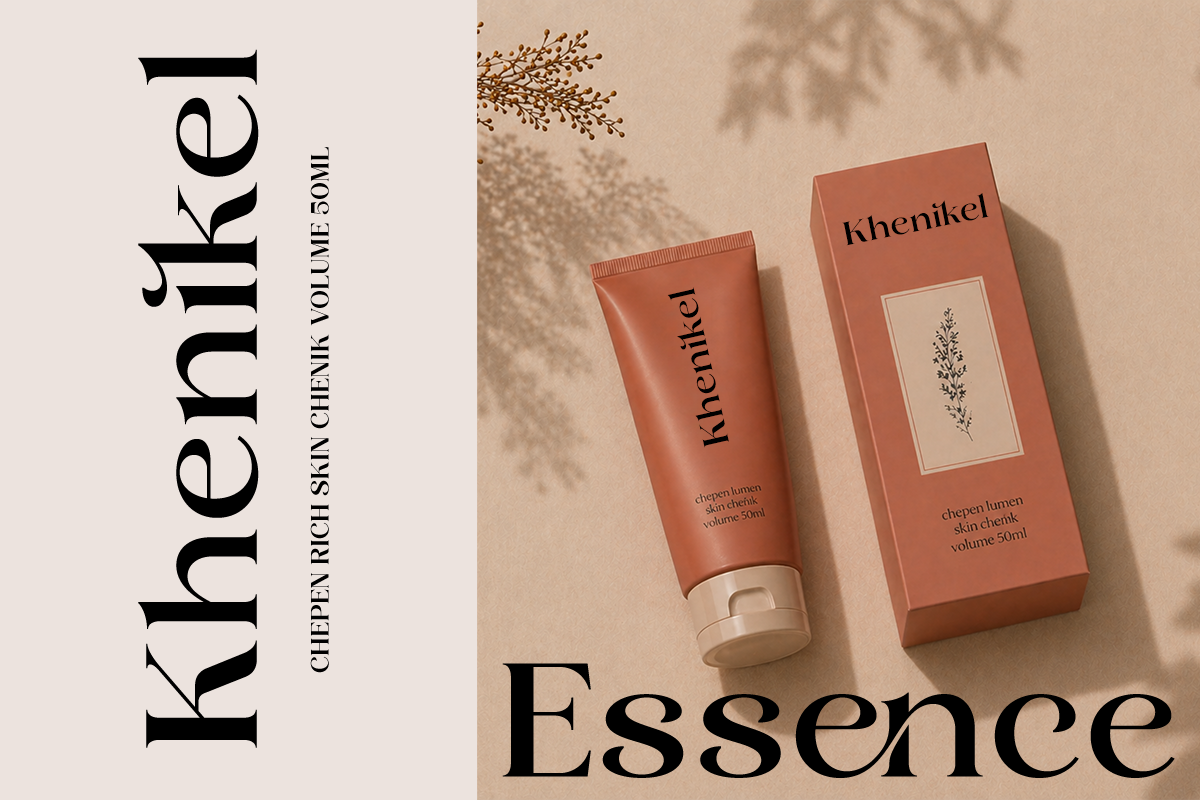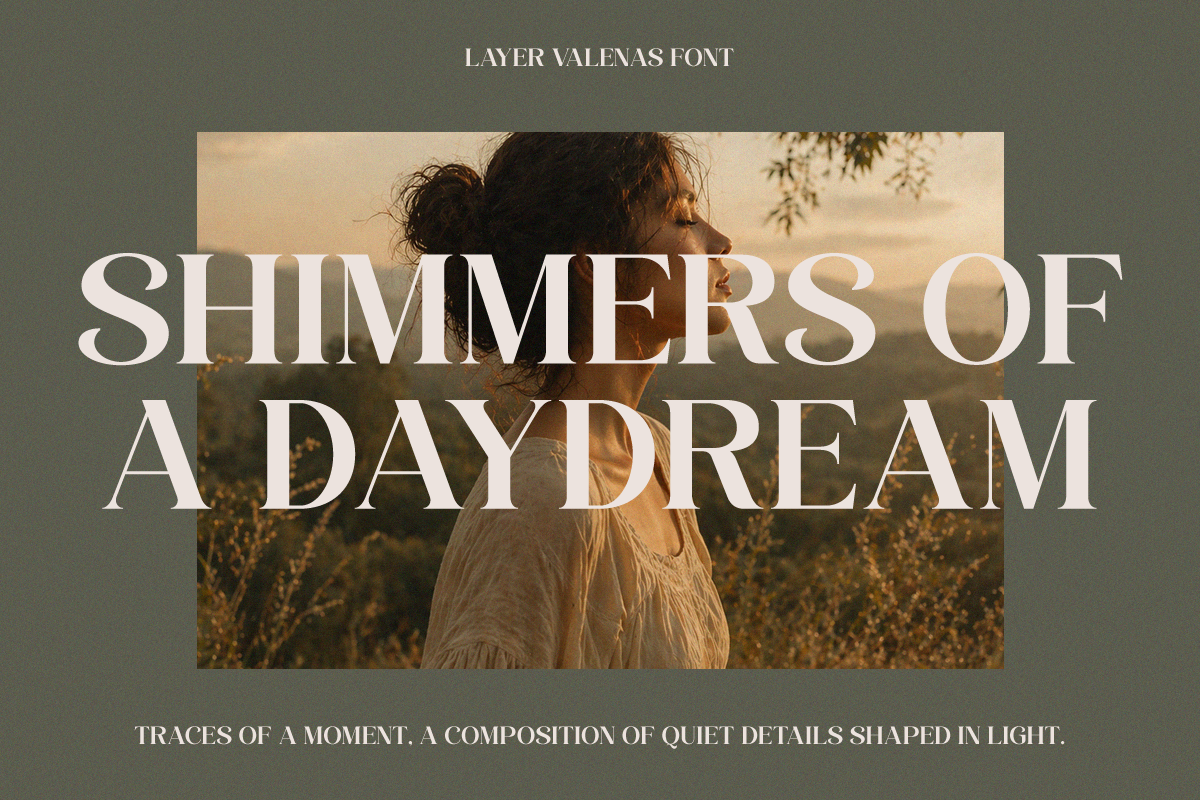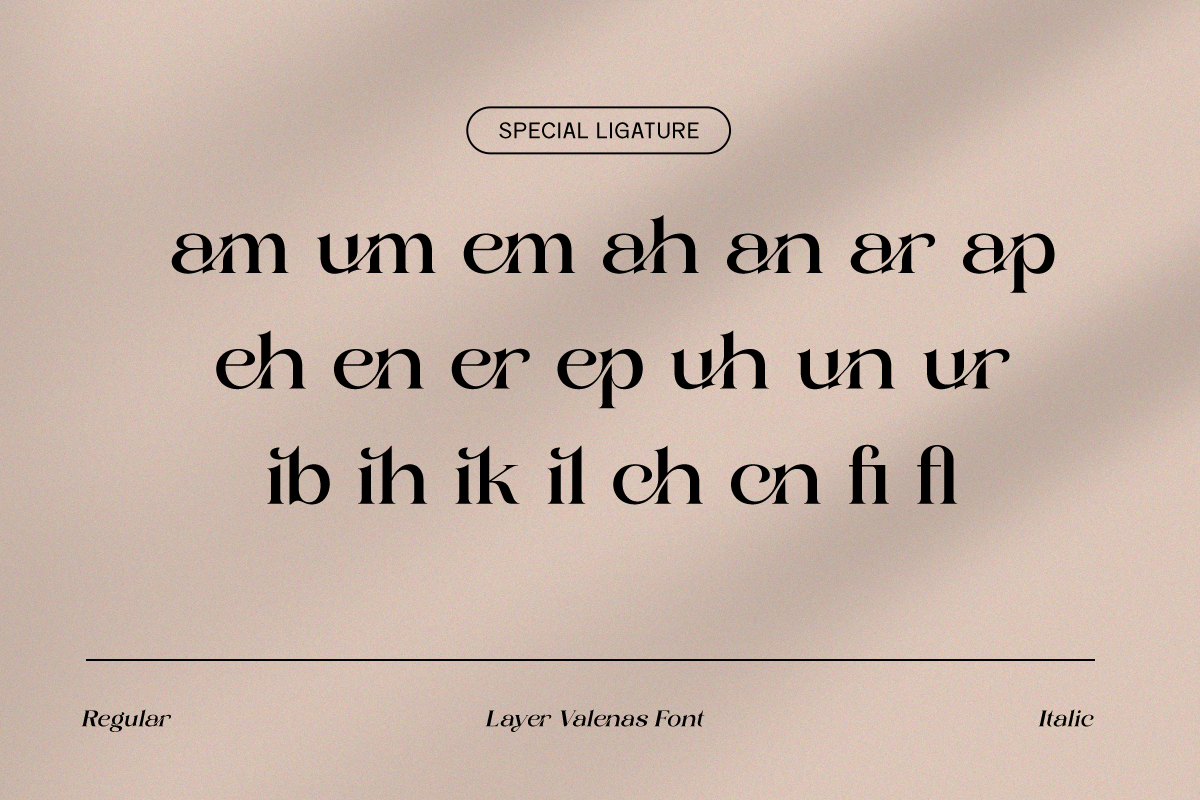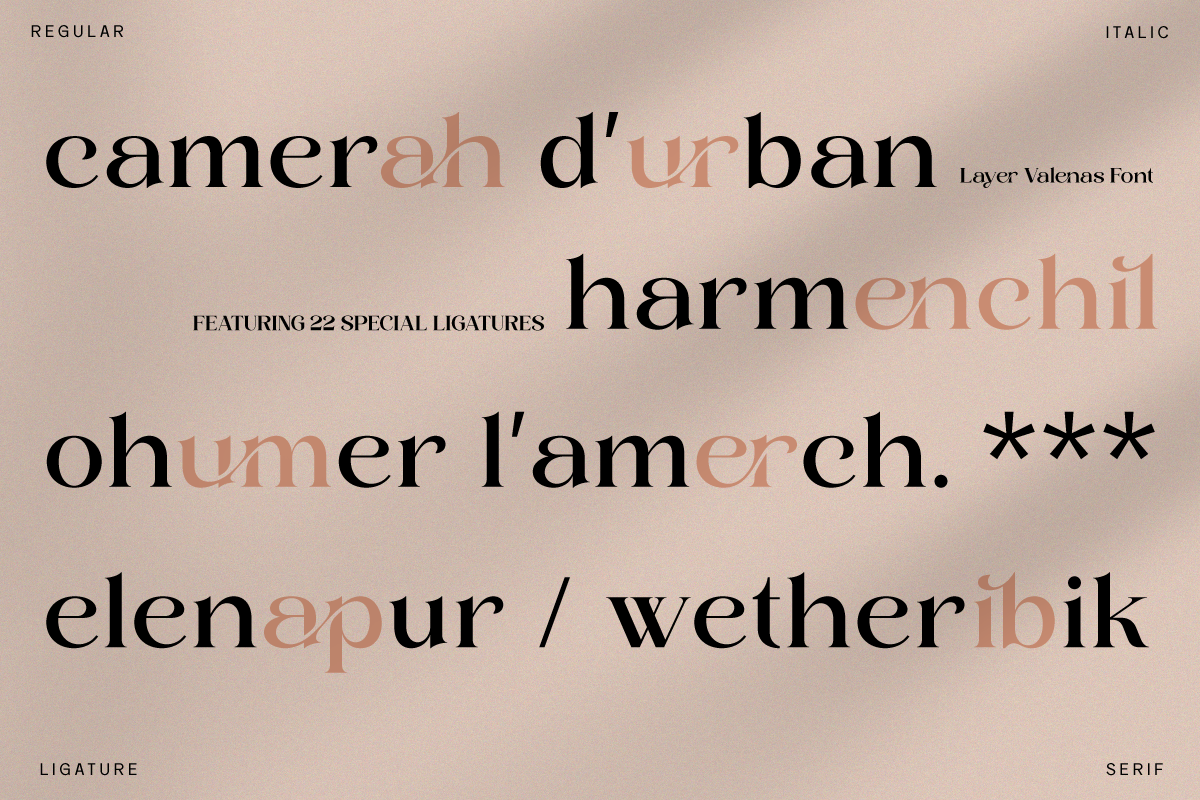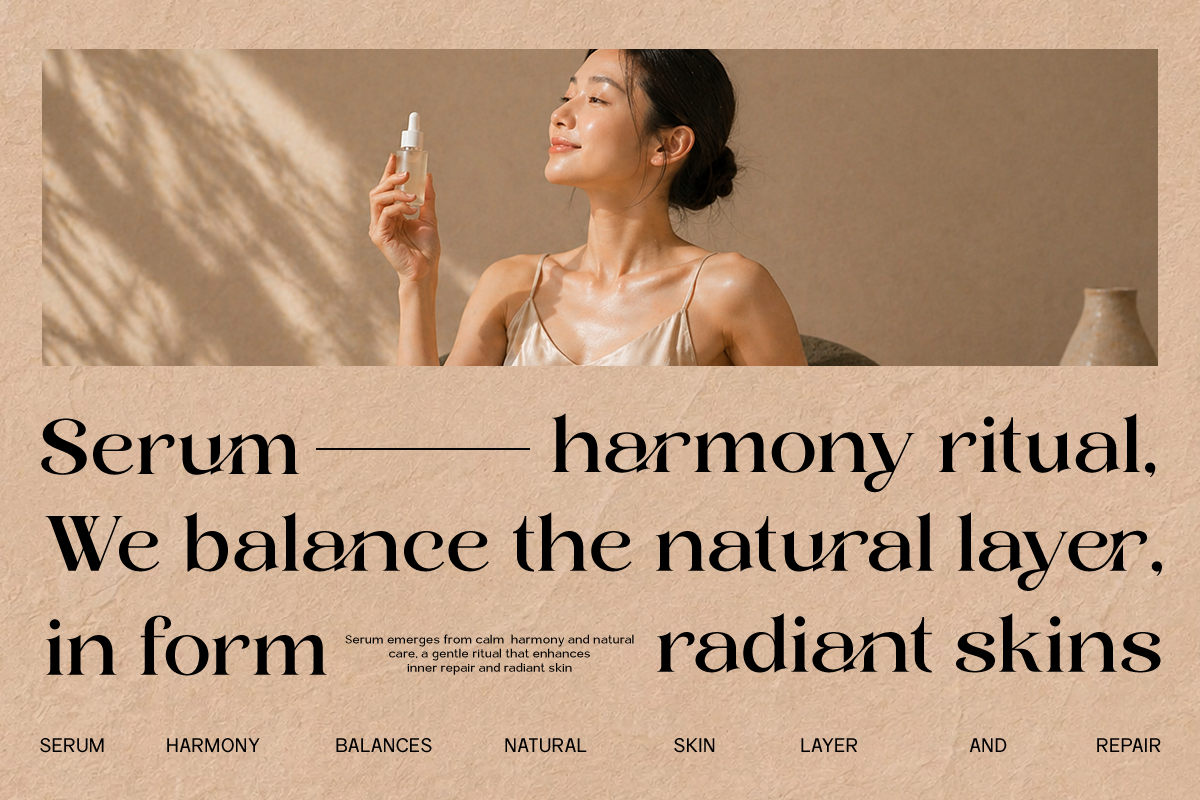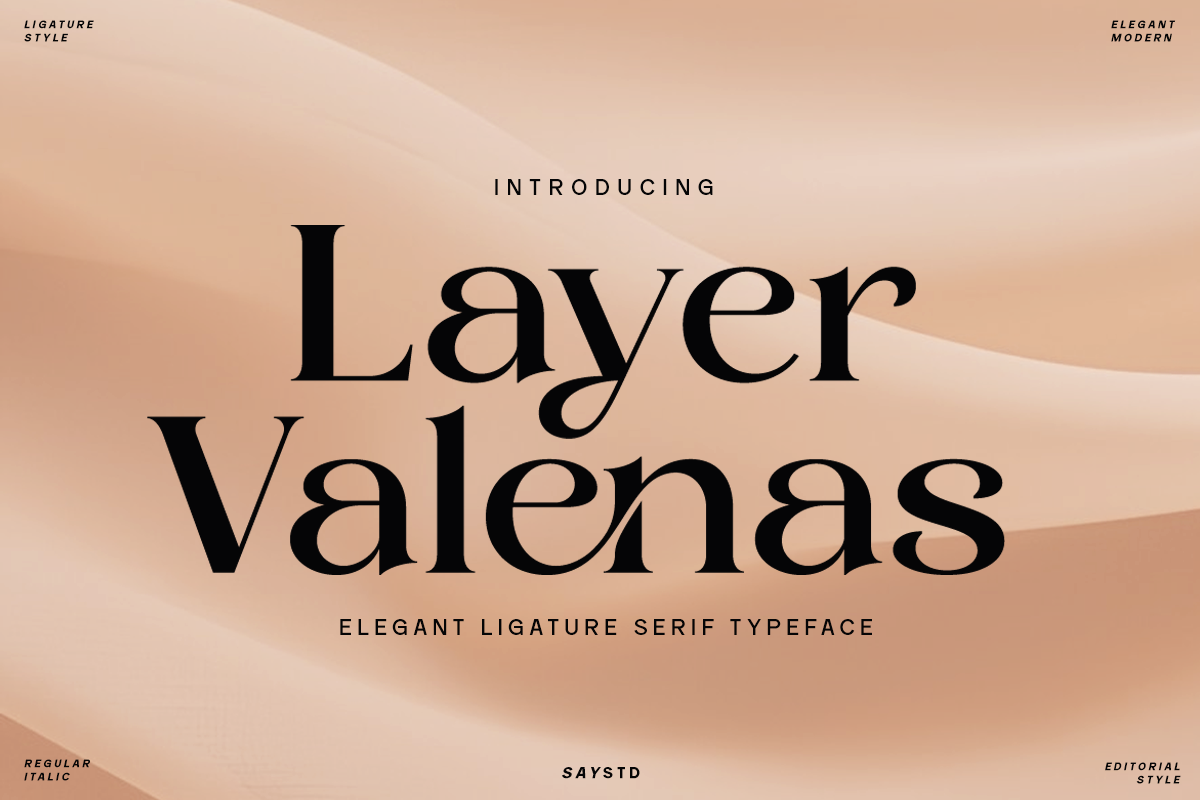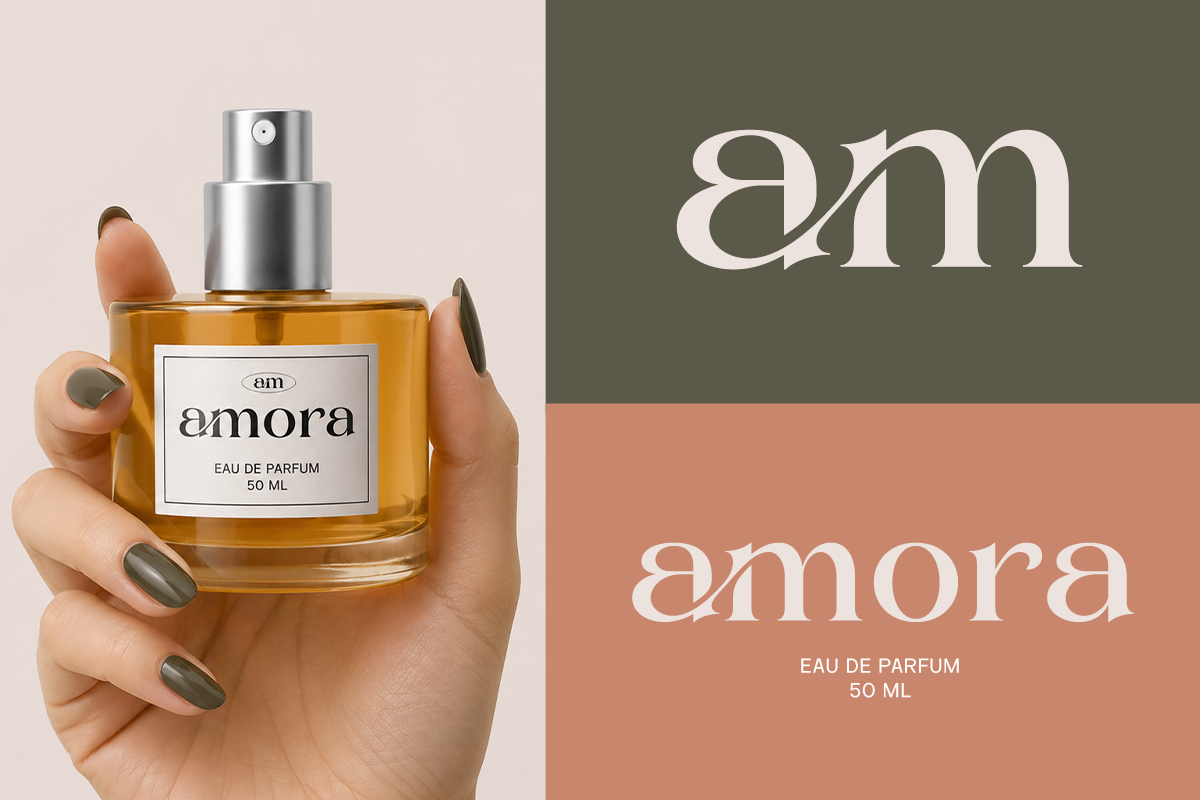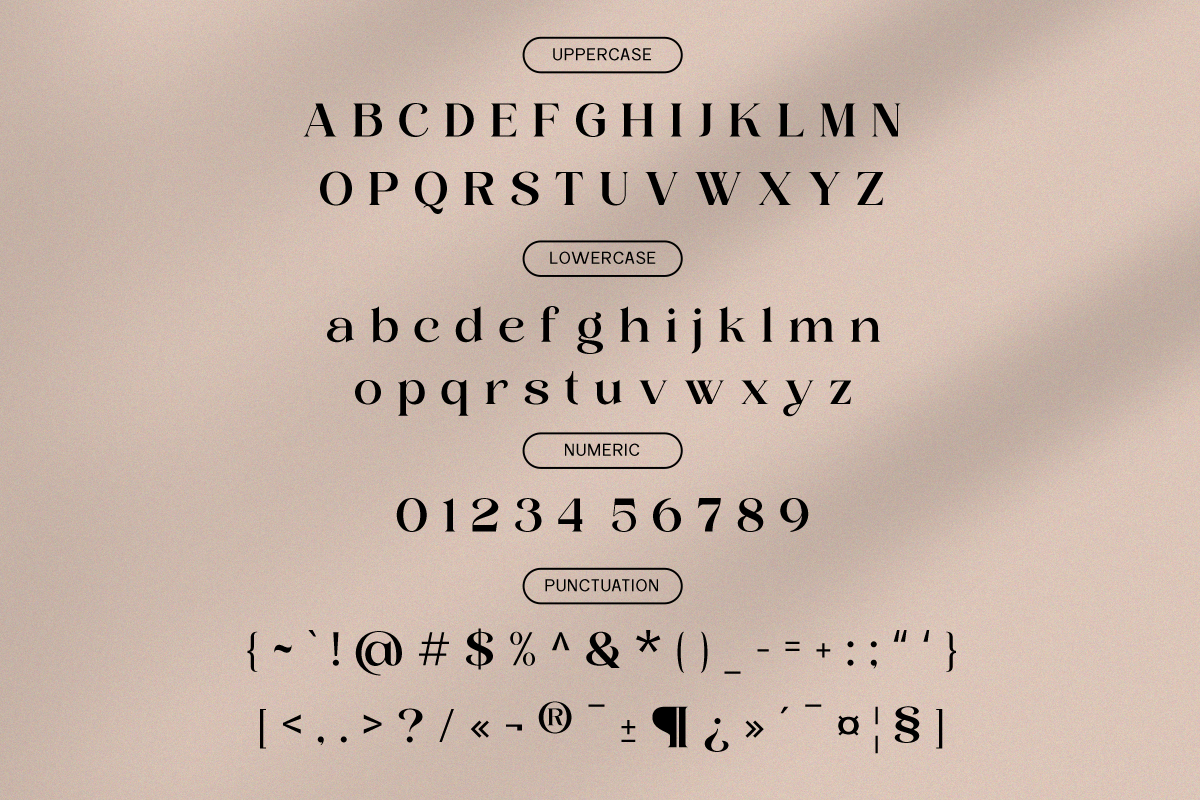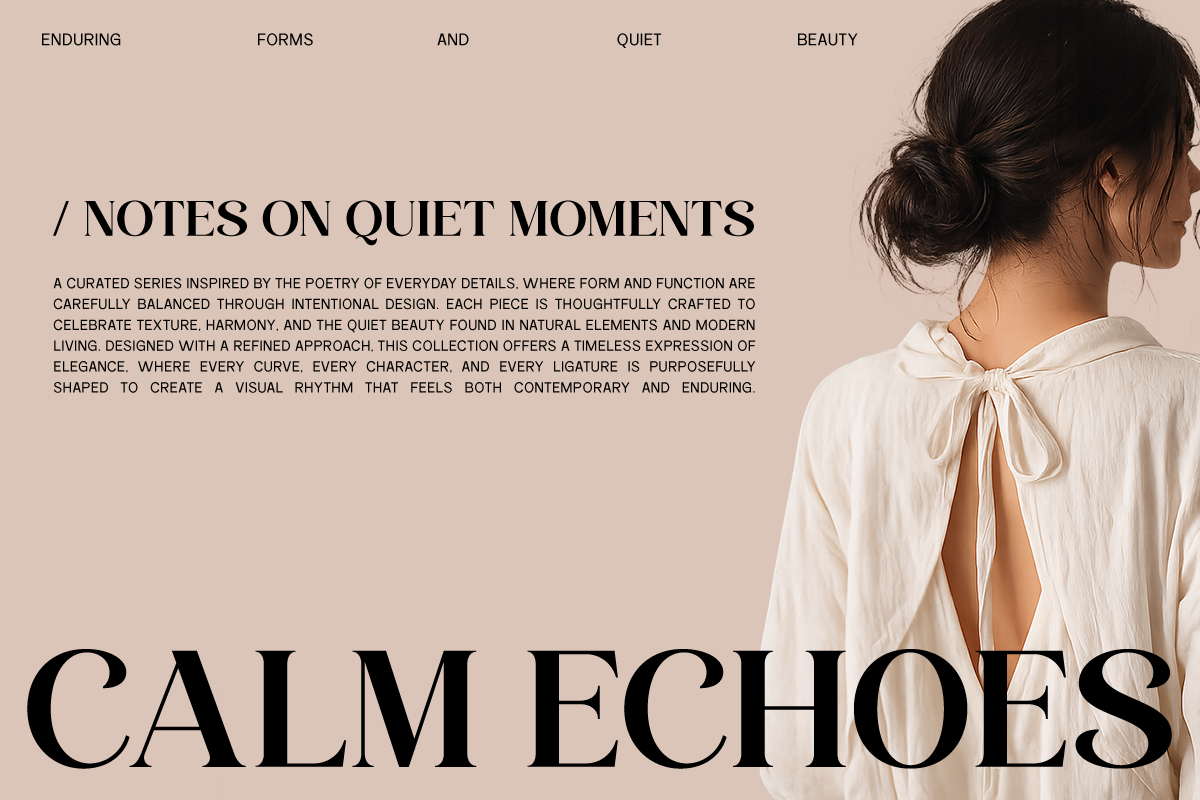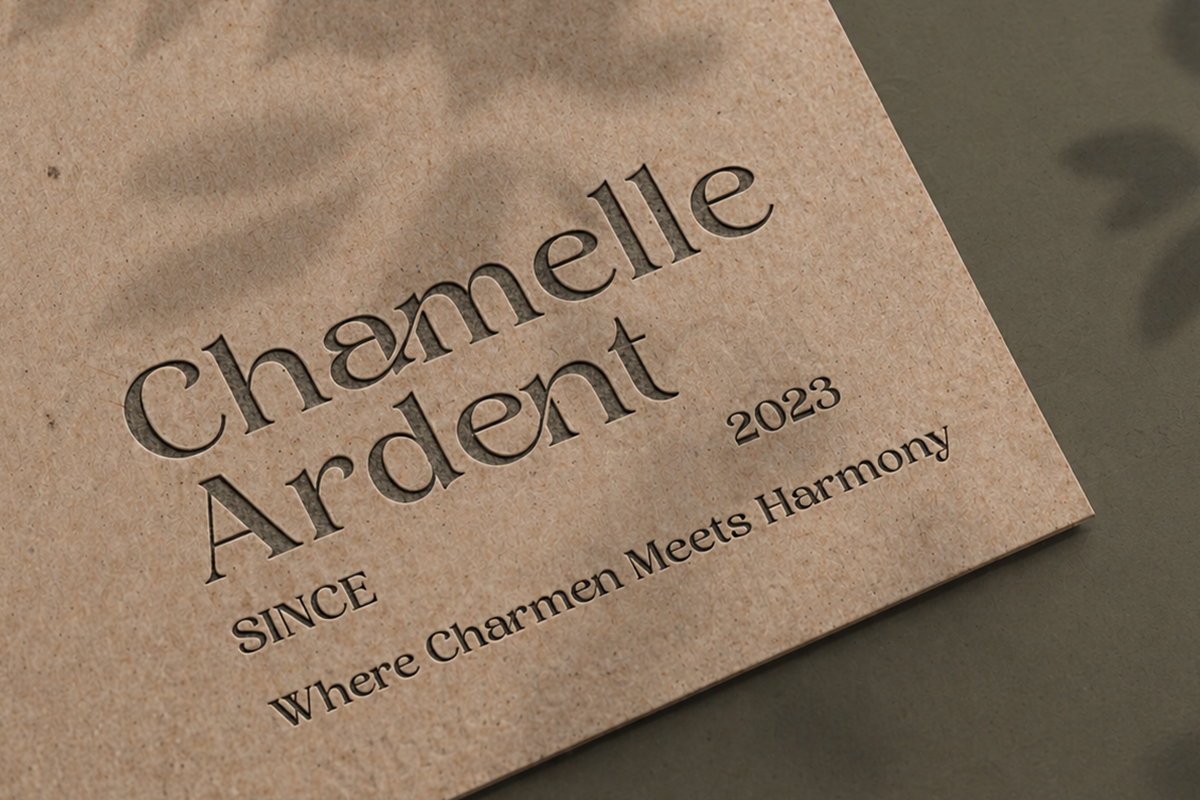
Luxury Ligature Font - Layer Valenas
Layer Valenas is an elegant ligature serif typeface crafted to bring timeless luxury and modern sophistication into every design project. With its refined curves, stylish contrast, and artistic ligature details, this font creates a graceful visual identity that feels premium, feminine, and editorial. Every character is designed to deliver a high-end aesthetic perfect for brands that want to stand out with beauty and confidence.
Perfect for luxury branding, fashion editorials, cosmetic packaging, wedding invitations, logo design, boutique branding, magazine headlines, jewelry branding, photography watermarks, social media templates, and elegant product packaging. Layer Valenas combines classic serif elegance with modern stylistic ligatures, making it ideal for designers seeking a chic and fashionable typography style with strong visual impact.
Whether you are building a luxury fashion label, creating a modern editorial layout, or designing premium feminine branding, Layer Valenas delivers a polished and sophisticated appearance that enhances every composition beautifully. Its elegant letterforms and stylish ligatures make every word feel artistic, classy, and memorable.
Regular and Italic Style
Stylistic Liagtures